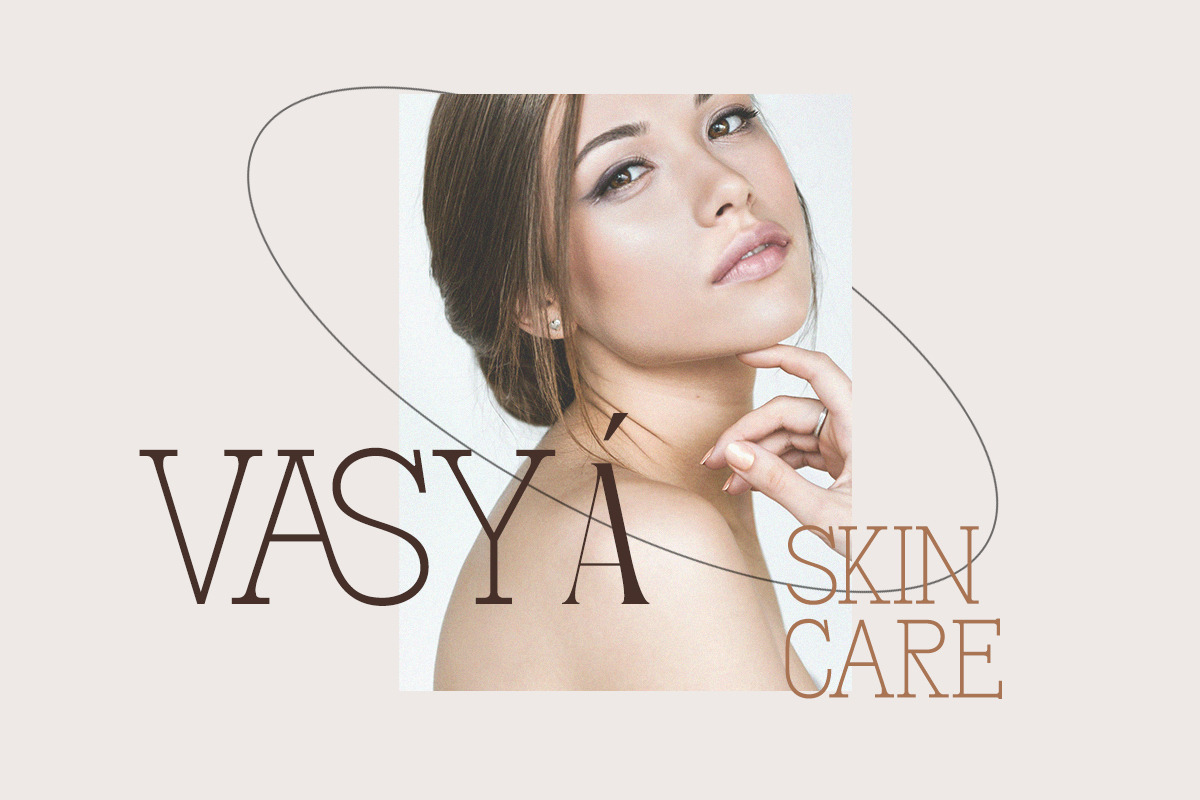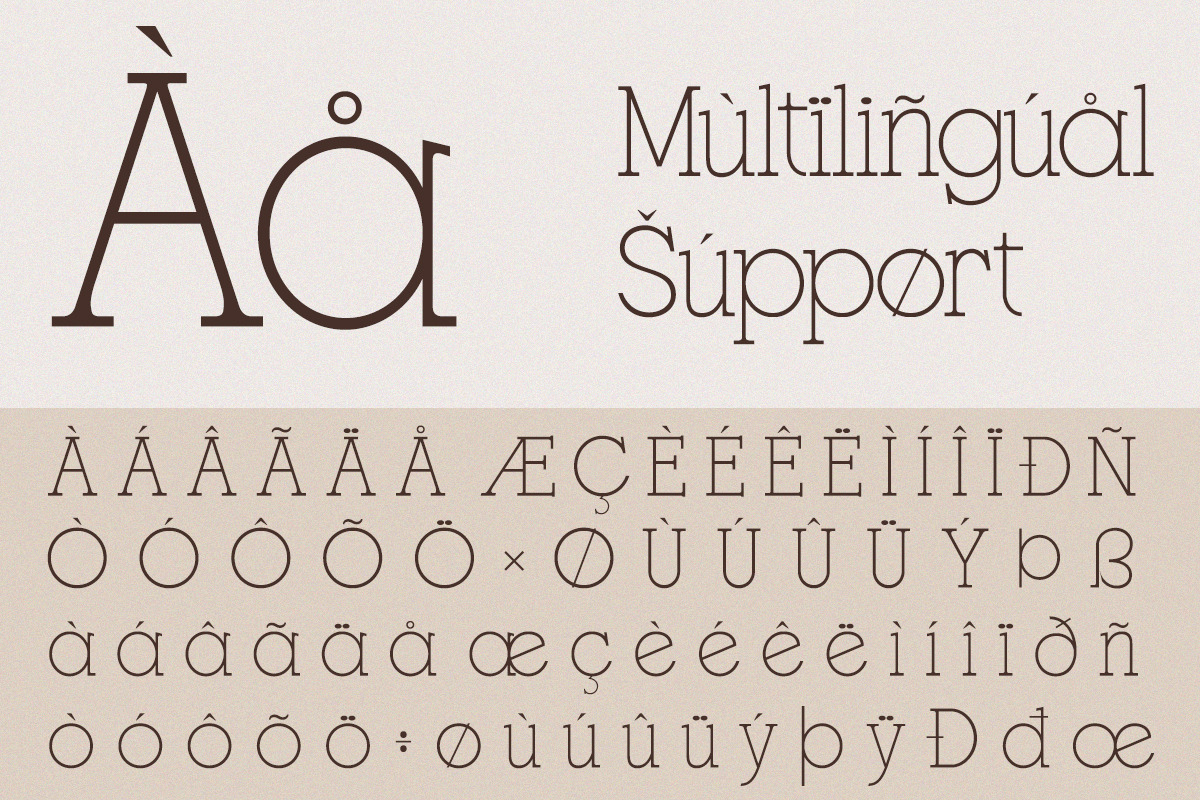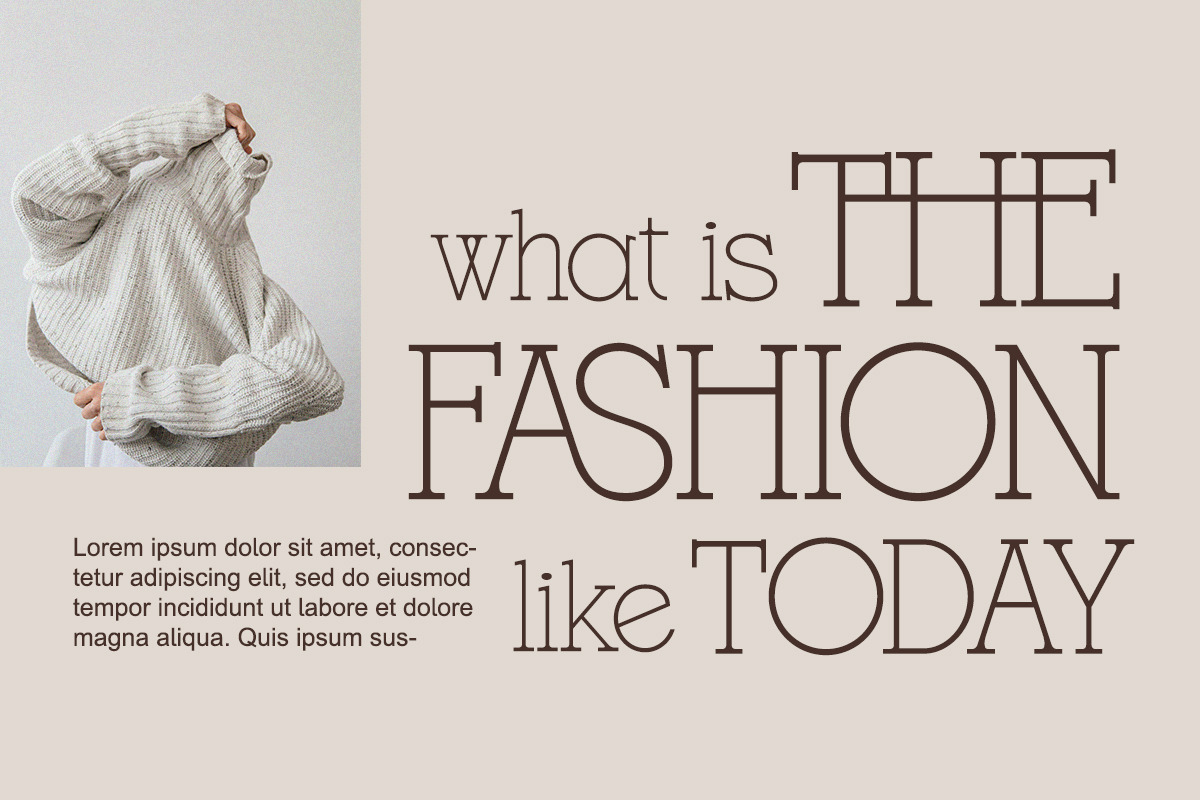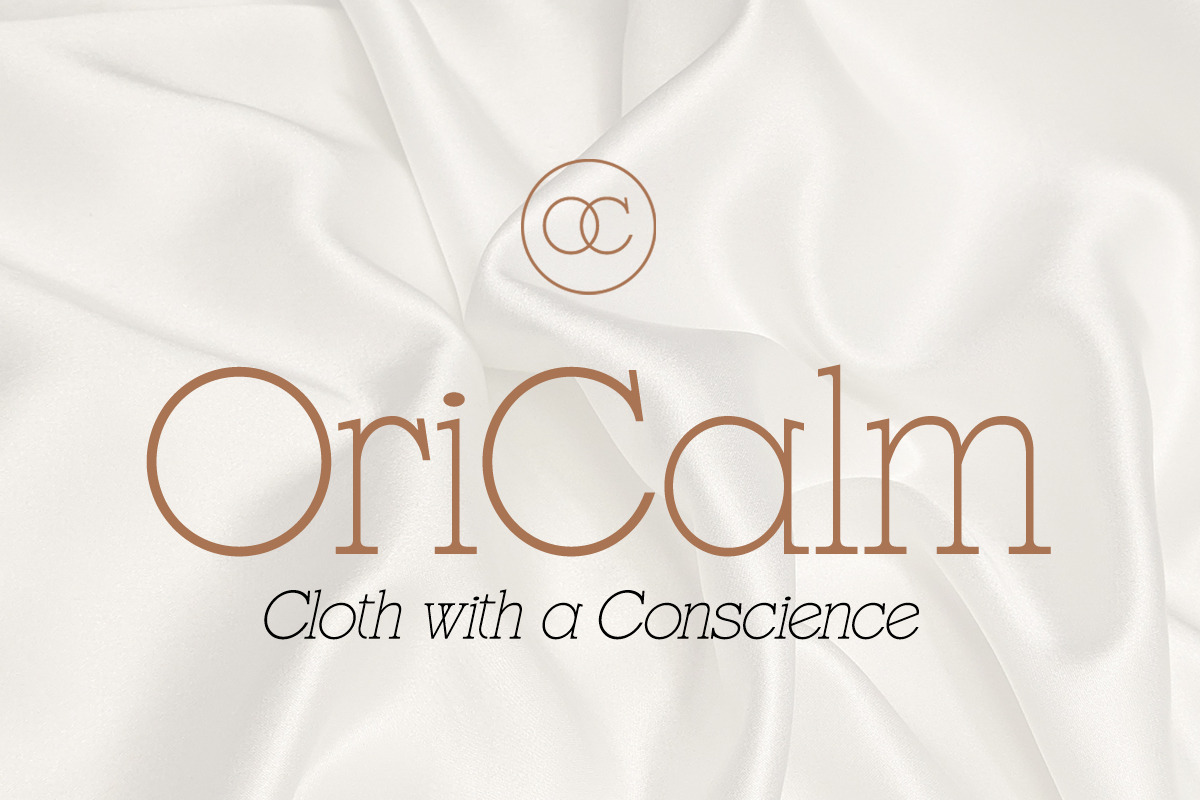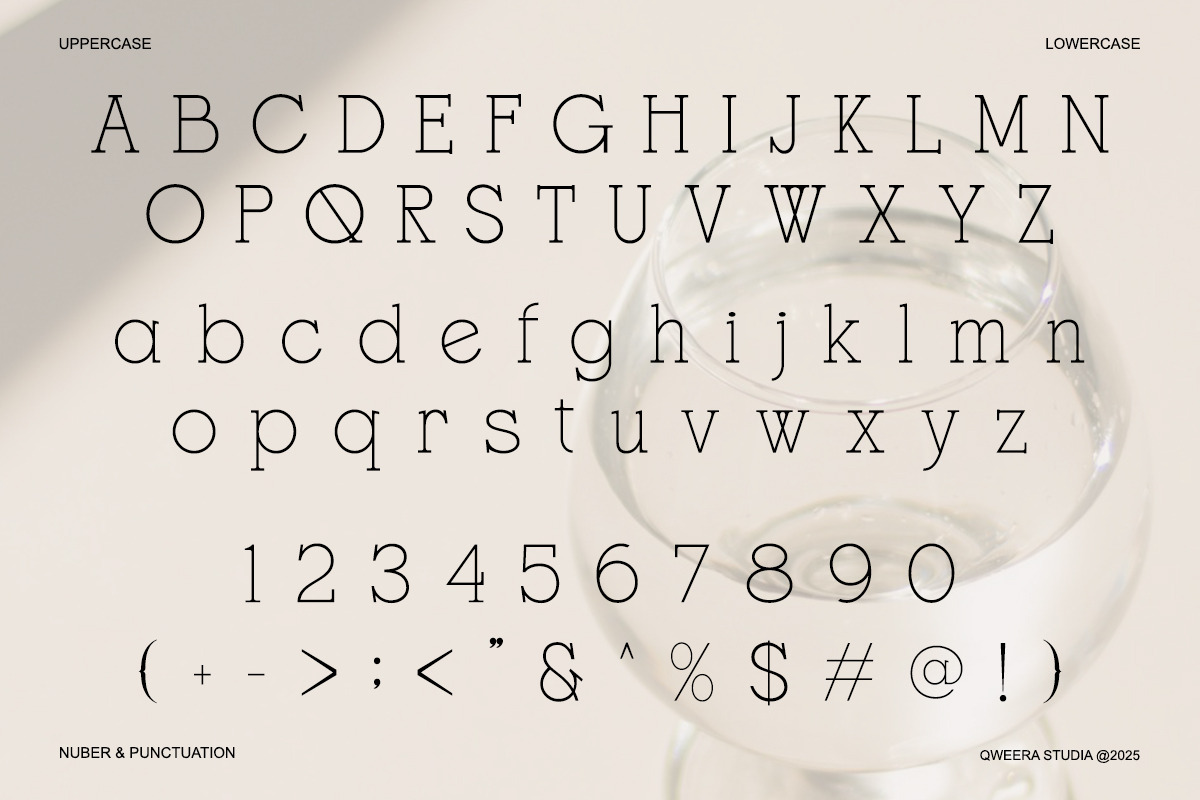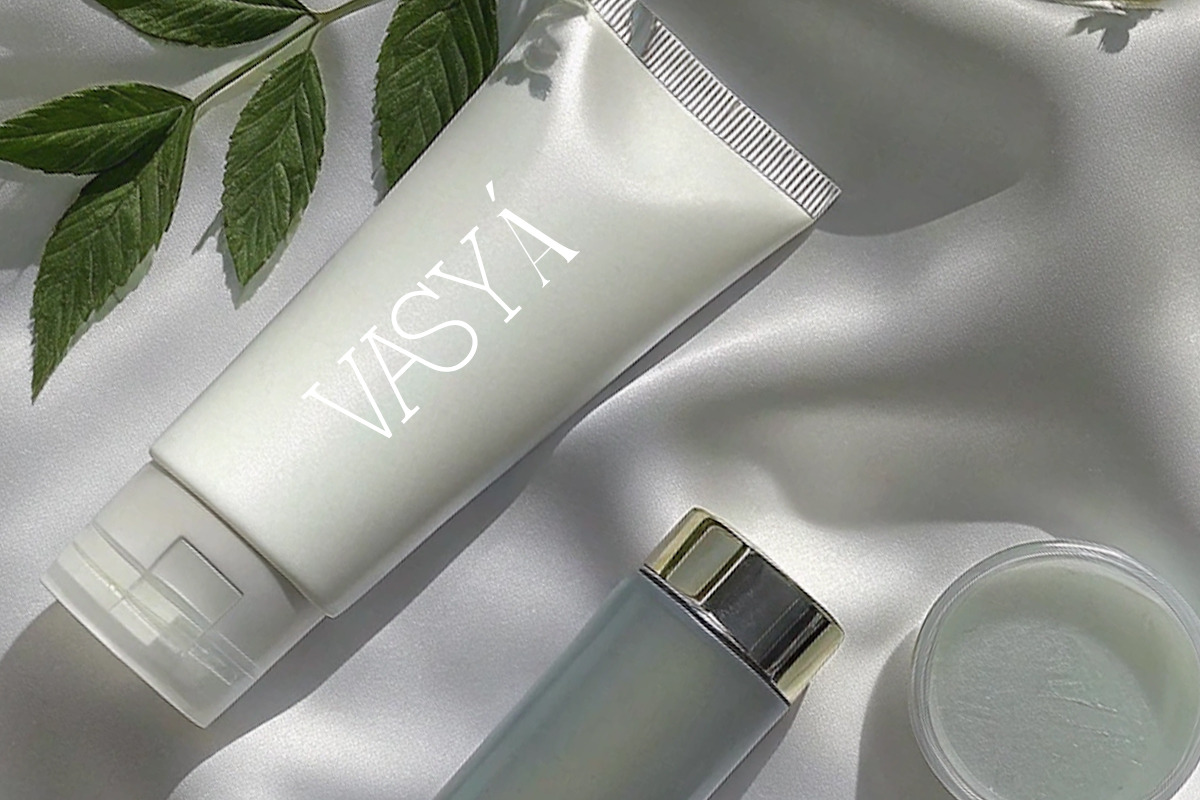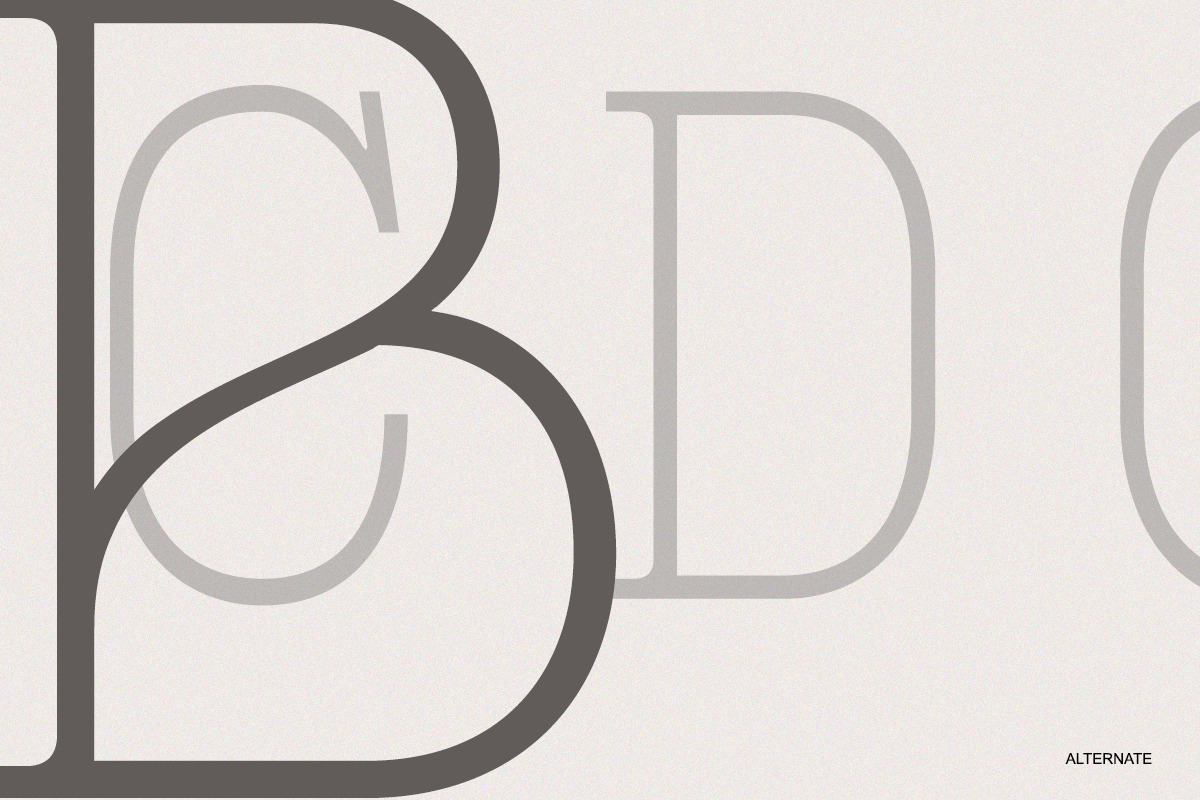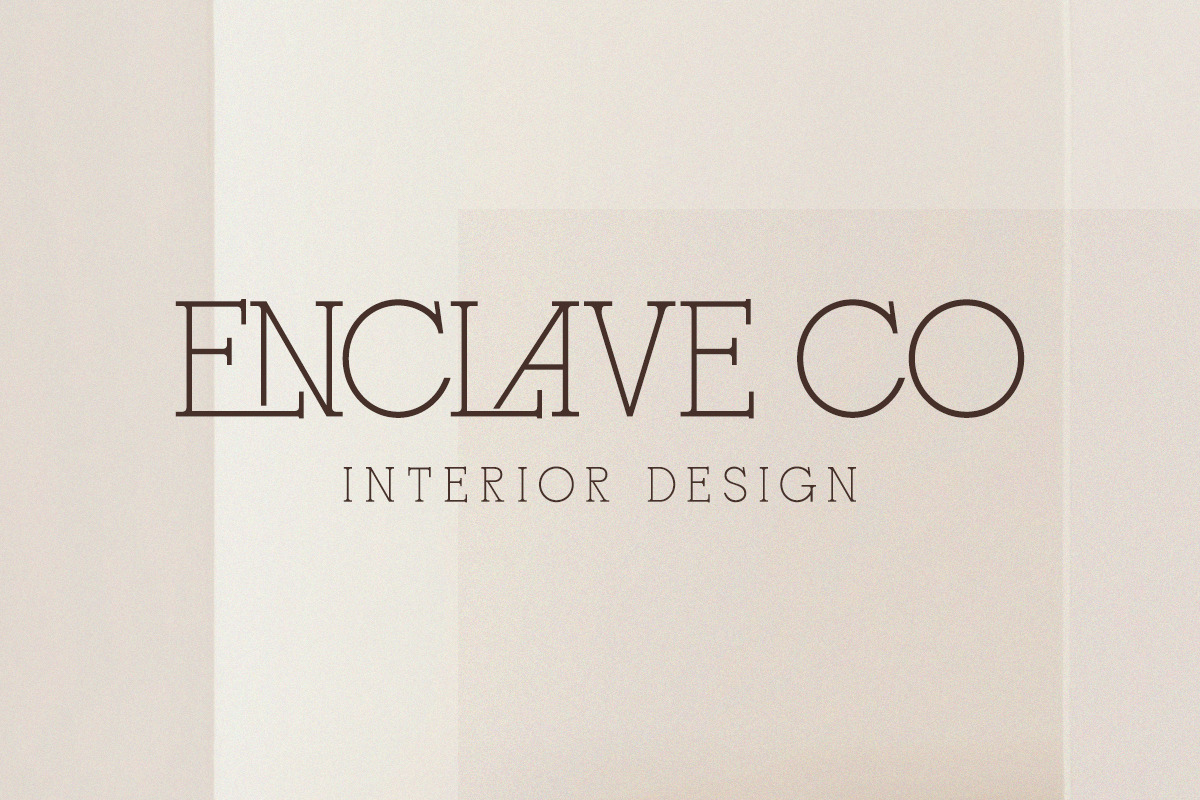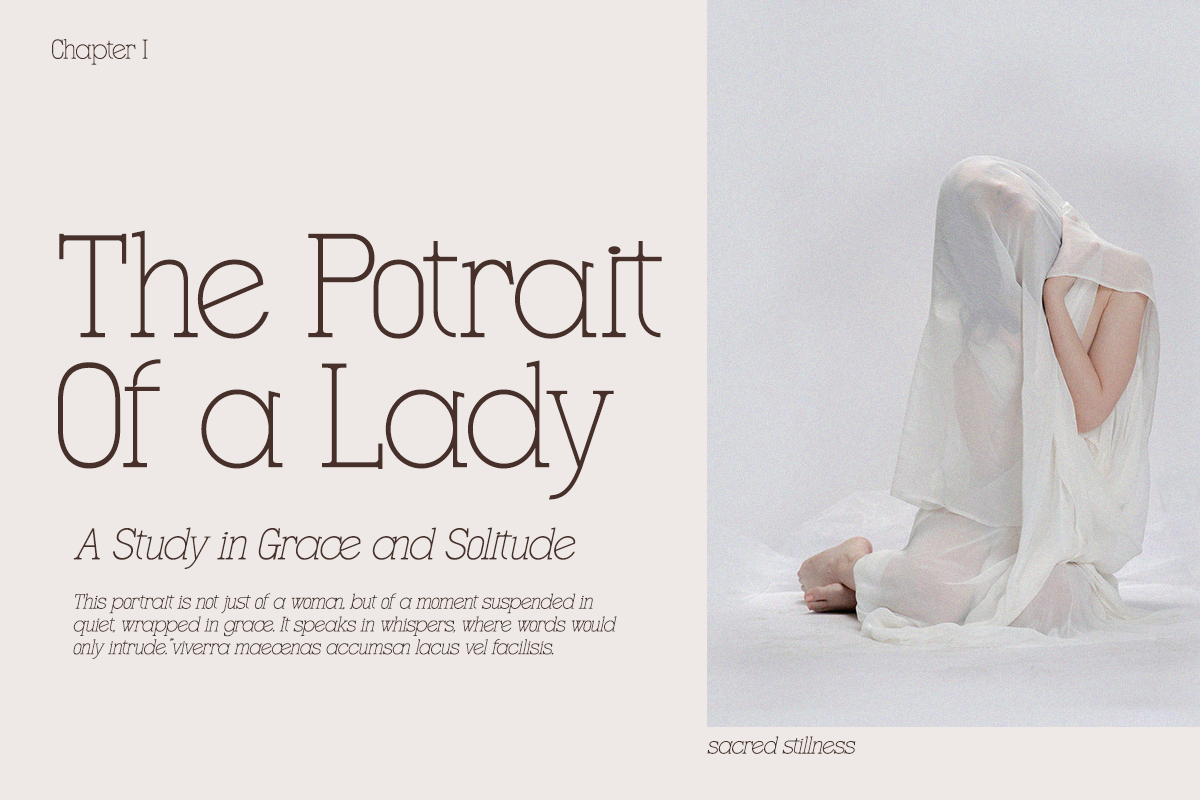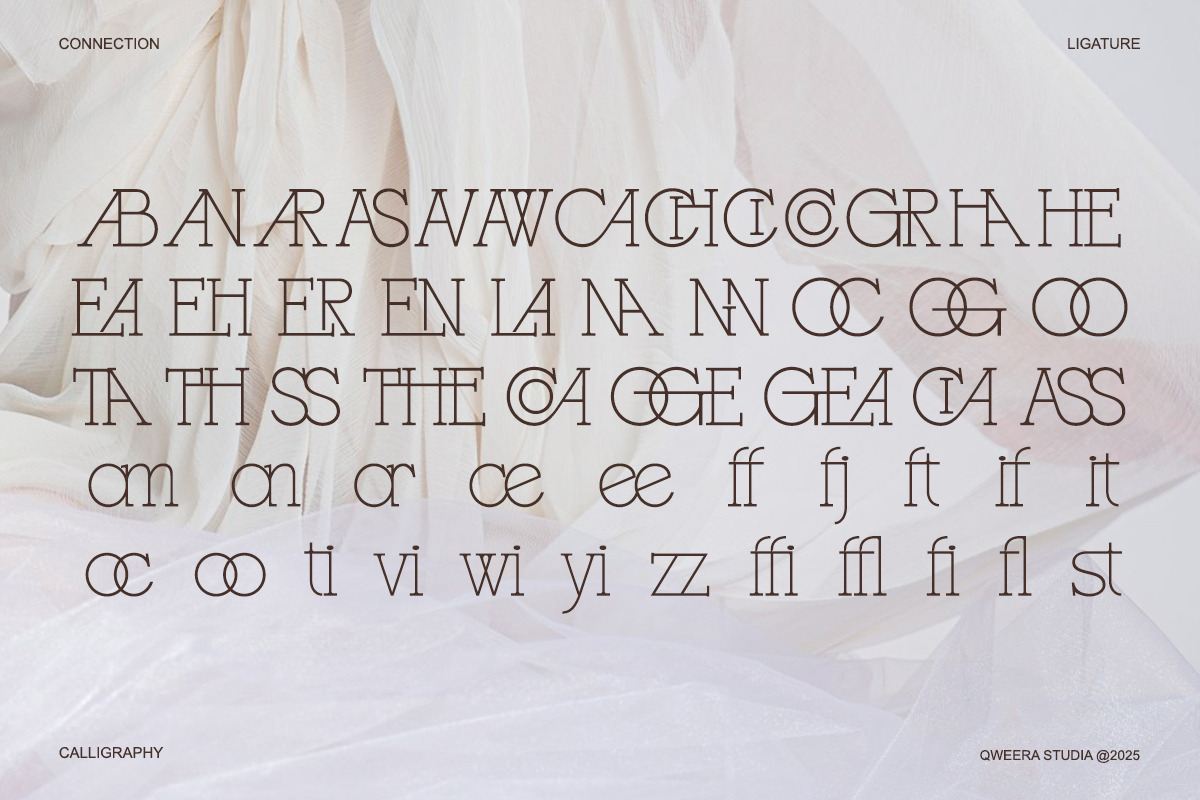
Gracessencia - Modern Elegant Luxury
Gracessencia is a refined modern serif font that blends timeless elegance with luxury sophistication.
Designed for high-end branding, fashion editorials, wedding stationery, and premium packaging, this typeface exudes grace, style, and modern harmony. With its sleek ligatures, stylistic alternates, and multilingual support, Gracessencia is the perfect choice for creatives seeking a font that elevates their design into a world of beauty and prestige.
- Regular & Italic styles
- Beautiful ligatures & alternates
- Modern elegant serif style
- Luxury branding identity
- Fashion & beauty magazines
- Wedding invitations & stationery
- Editorial layouts
- Premium product packaging
- Elegant social media content
Designed to bring grace and sophistication to every detail.